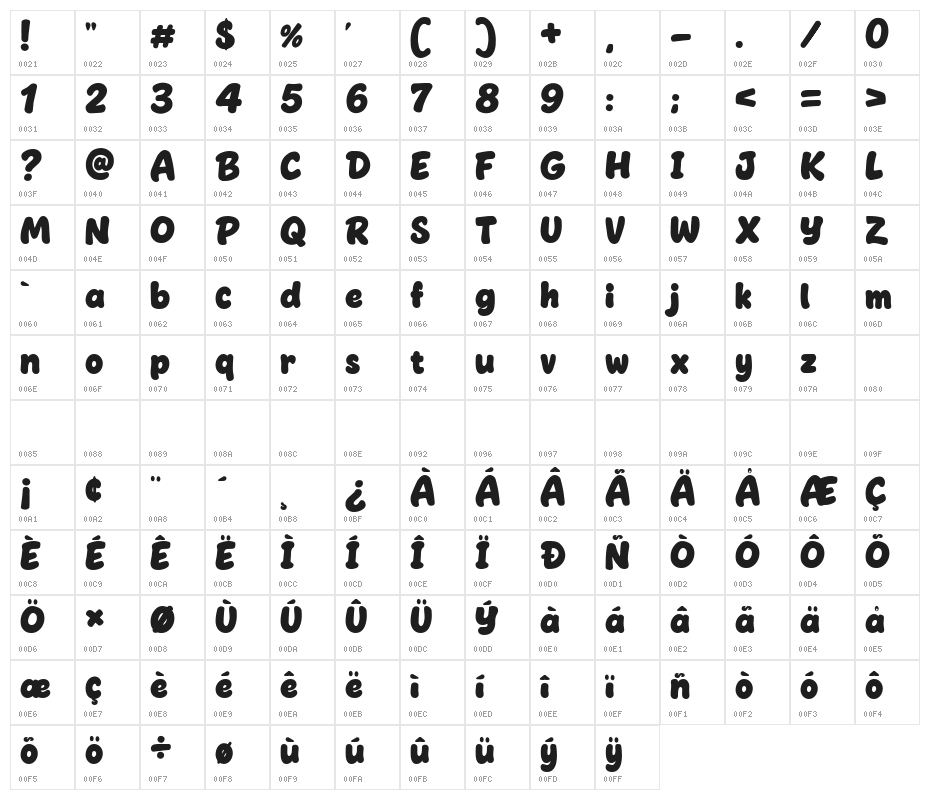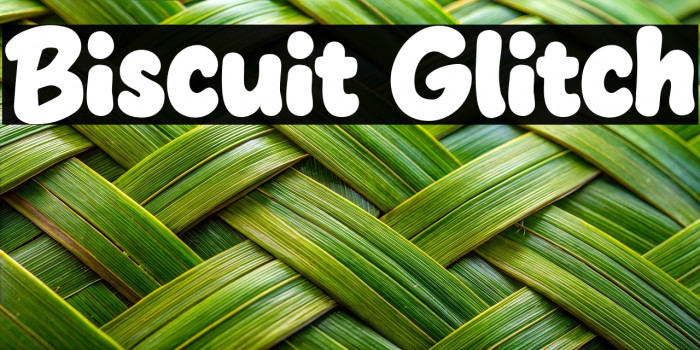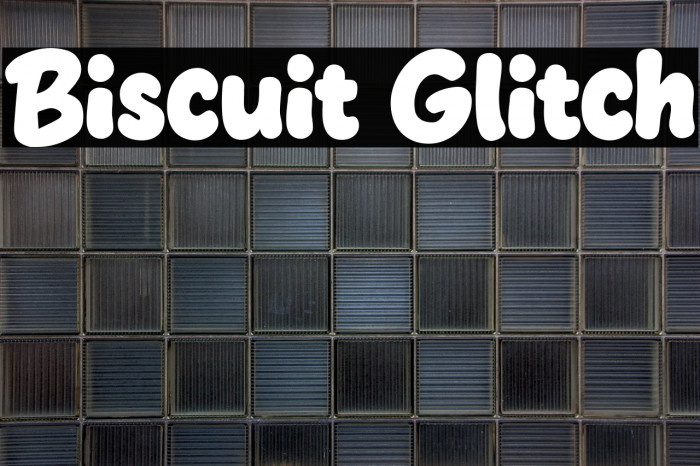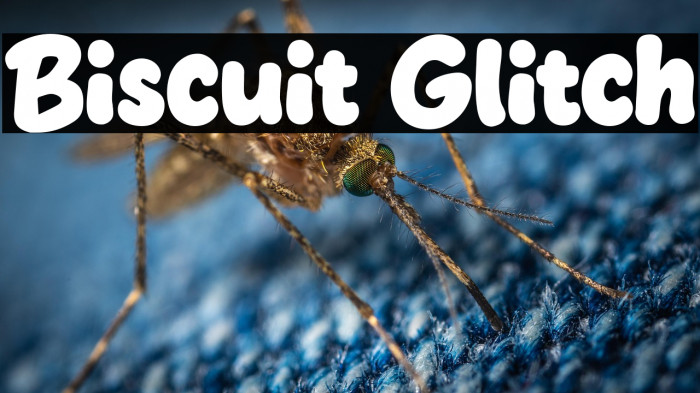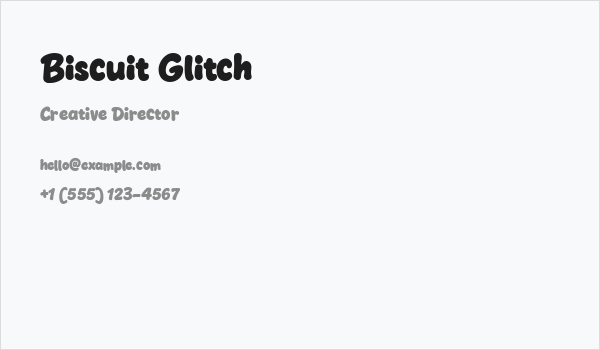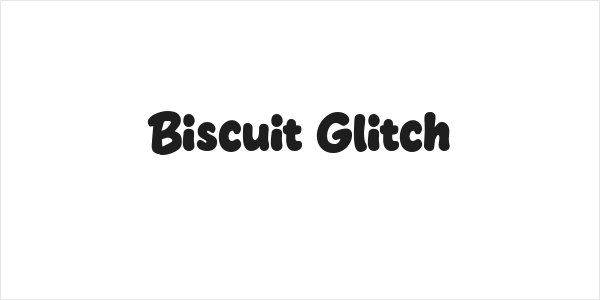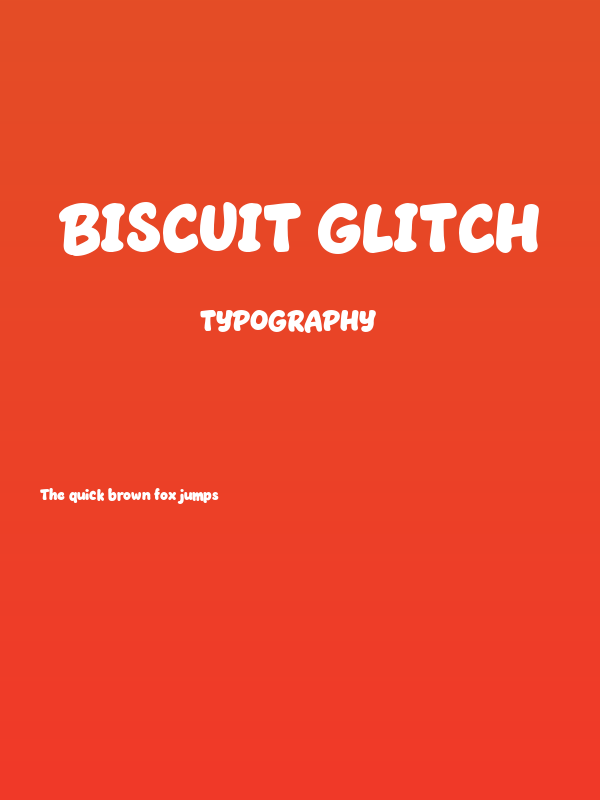
Biscuit Glitch Font
Biscuit Glitch Description
A playful, rounded sans-serif font with thick, bubbly strokes and a hand-drawn appearance. The characters are bold and have a soft, friendly feel, with consistent stroke weight and generous curves throughout.
| Overall Style | Playful, Decorative, Modern |
| Use Case | Headlines, Logos, Posters, ChildrenΓ’β¬β’s materials |
| Proposed Projects | ChildrenΓ’β¬β’s books, playful branding, posters, party invitations, social media graphics. |